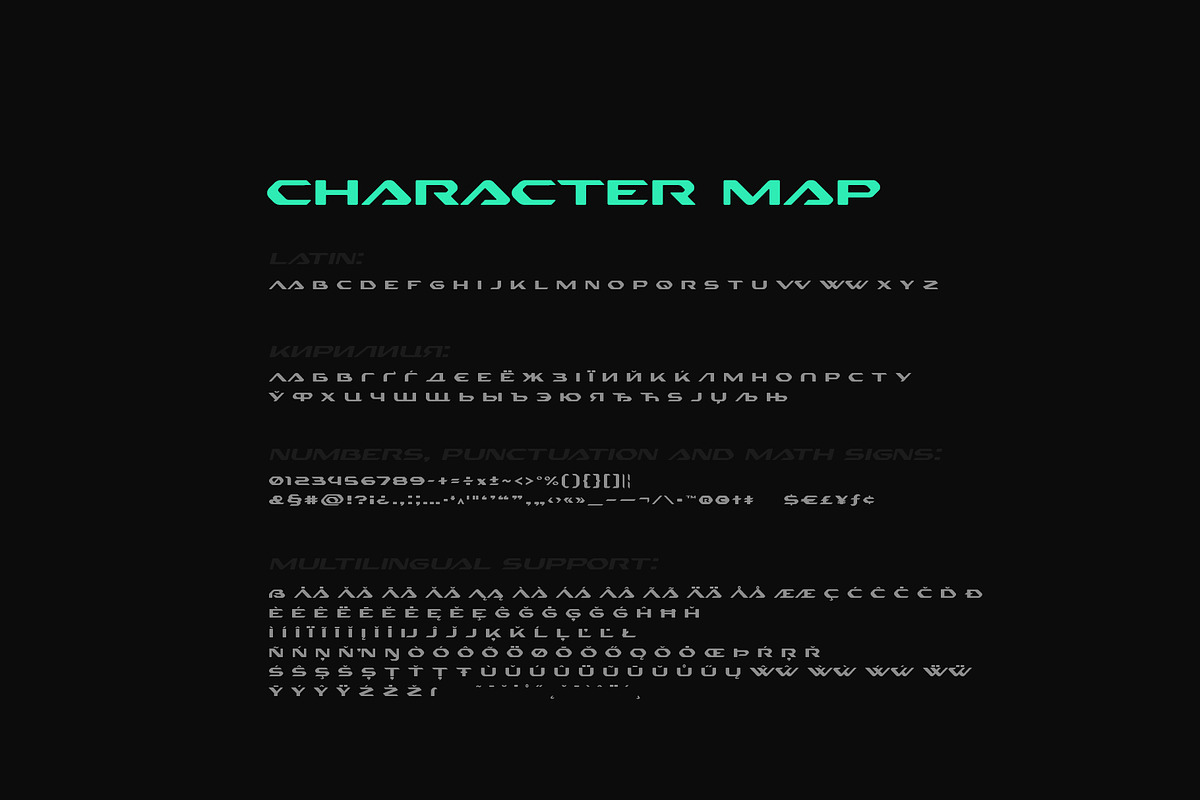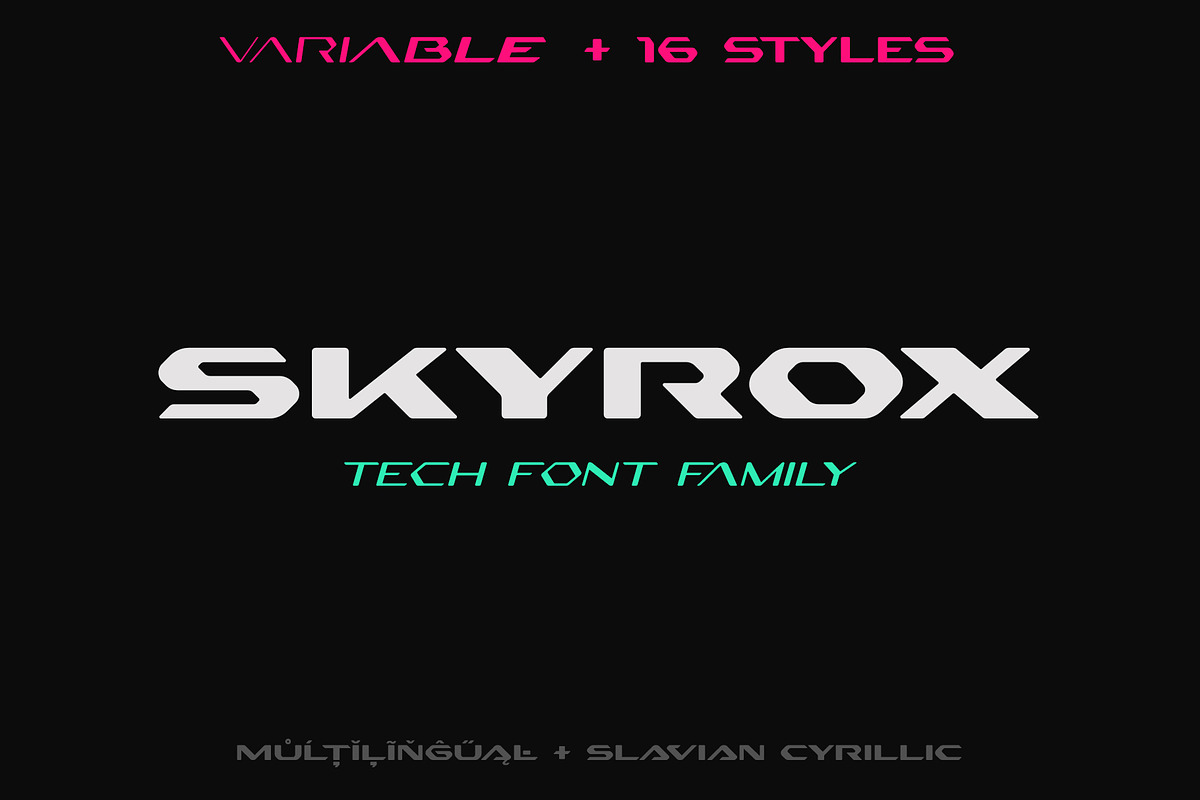
Skyrox Variable
Skyrox is Variable Font creates modern futuristic hi-tech atmosphere and style.
Variable Controls are: Weight, Width, Italic Angle.
It is created basing on Font Family of 16 styles (Hairline, Bold, Condensed, etc.) which allows Skyrox looks good as Headline and as Text both.
Multilingual support (LatinPro & Salvian Cyrillic).
Supported Languages: Bosnian, Catalan, Czech, Danish, German, English, Spanish, Estonian, Finnish, French, Irish, Croatian, Hungarian, Icelandic, Italian, Lithuanian, Latvian, Maltese, Norwegian, Polish, Portuguese, Romanian, Slovak, Slovenian, Albanian, Swedish, Turkish, Ukrainian, Belarusian, Bulgarian, Macedonian, Russian, Rusyn, Russian, Serbo-Croatian.